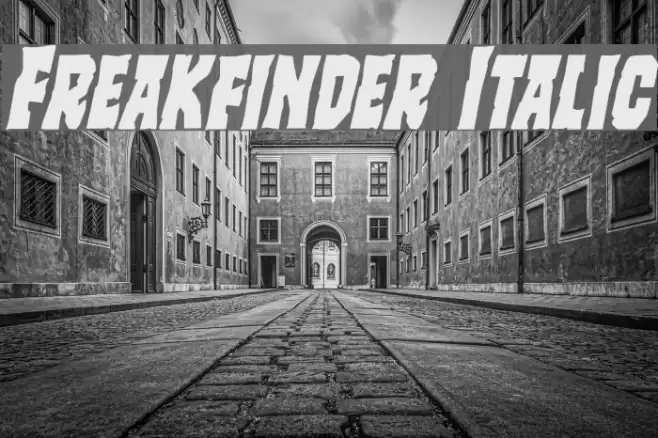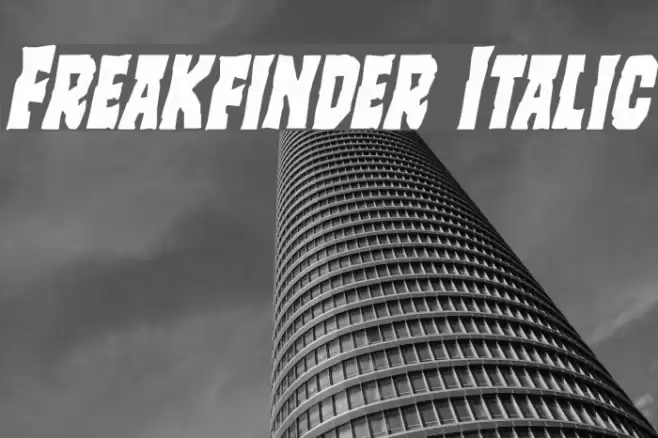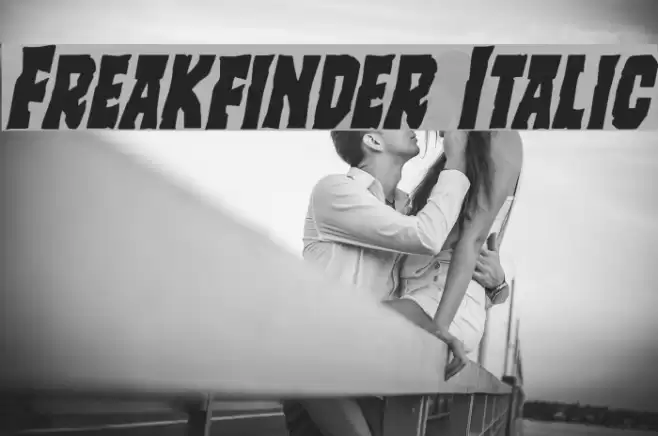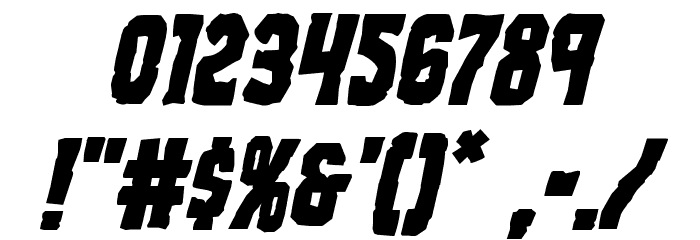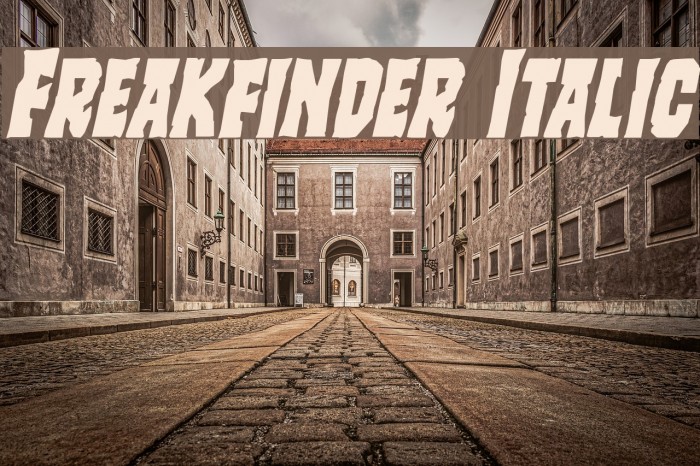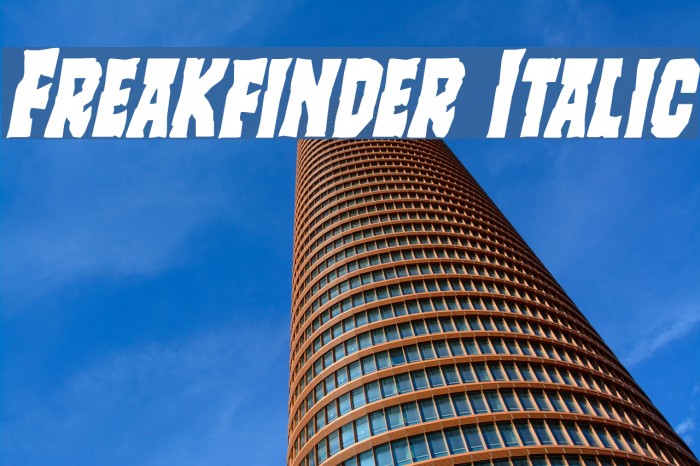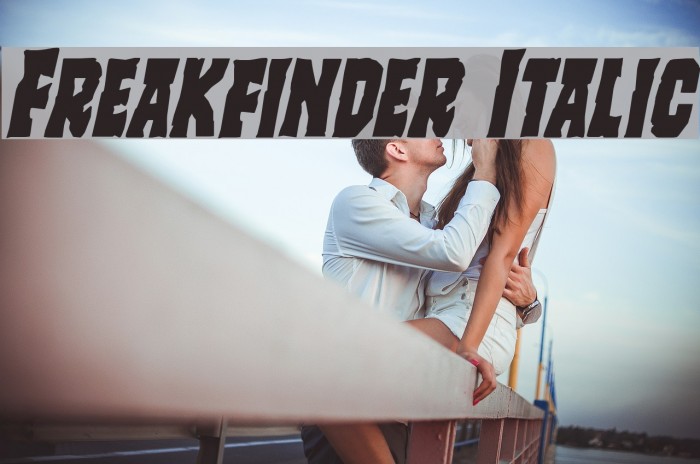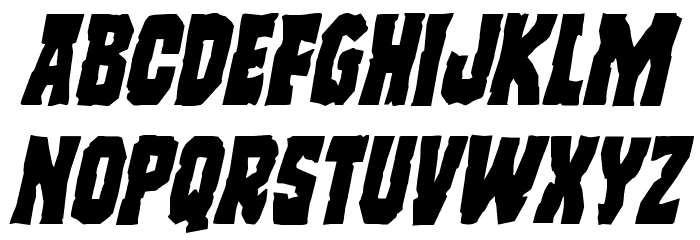
Freakfinder Italic Font
Freakfinder Italic Description
This font features a bold, italicized style with a strong and dynamic presence. The characters are heavily slanted, giving a sense of movement and energy. The strokes are thick and uneven, creating a rugged and edgy appearance. This font is highly decorative, with a unique and distinctive look that stands out. The uppercase and lowercase letters maintain a consistent style, while the numbers and special characters complement the overall design. The font's boldness and slant make it ideal for attention-grabbing headlines and impactful designs.
A bold, italicized, and dynamic font with a rugged, edgy appearance from Uncategorized fonts.
- Proposed Projects: Perfect for posters, logos, branding, and any project requiring a bold, eye-catching typeface.